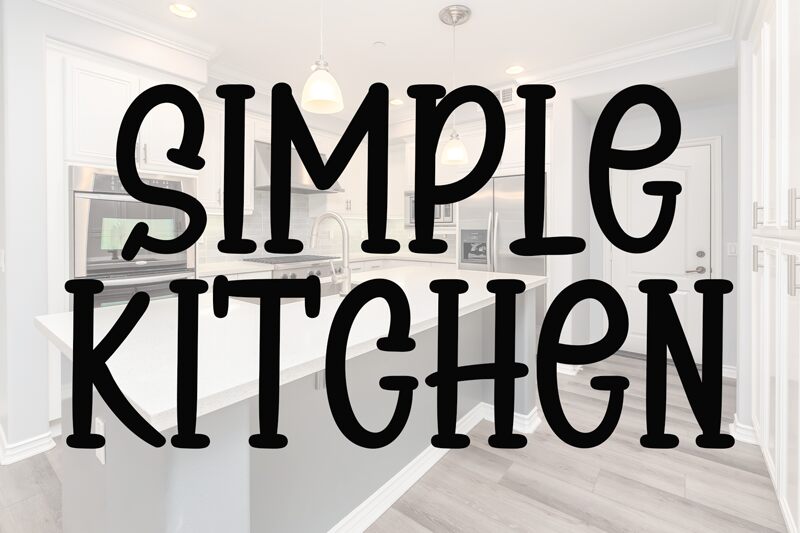
Simple Kitchen
Simple Kitchen, designed by Etik Fatimah, is a whimsical display font that exudes charm and playfulness with its cartoon style. Each letter seems to dance with a jovial buoyancy, inviting smiles and evoking the light-heartedness of animated storytelling. This font's friendly curves and bubbly contours make it perfect for projects that aim to strike a delightful tone.
With its distinctive character shapes and joyful presence, Simple Kitchen is particularly well-suited for children's books, playful branding materials, casual restaurant menus, or any design space that benefits from a touch of fun. Its ability to convey warmth and approachability makes it an excellent choice for creative endeavors looking to foster a welcoming atmosphere.